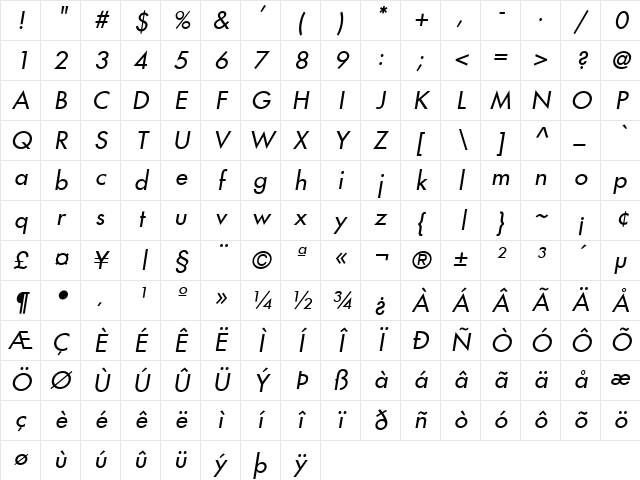
Complete Fujiyama2 Italic glyph index. Displaying only characters natively supported by Fujiyama2 Italic font.
Fujiyama2 is a composed and adaptable typeface that performs quietly and consistently across a wide range of design contexts. The slanted form adds forward momentum and visual energy.